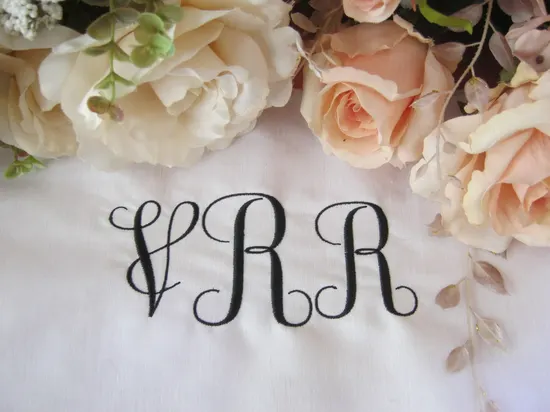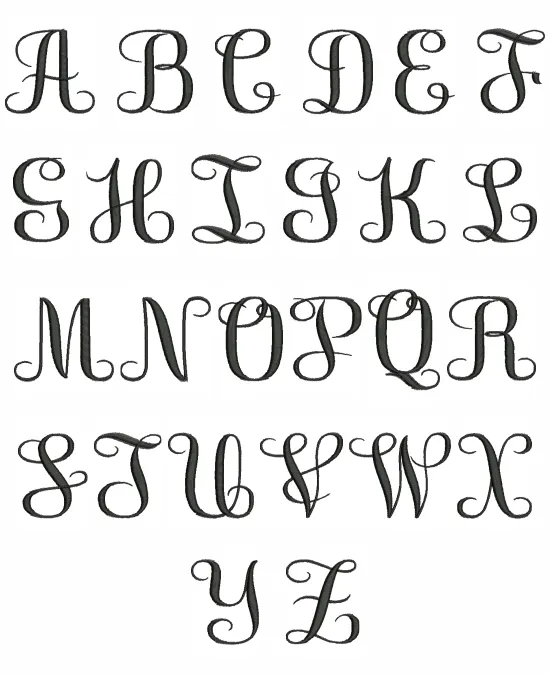
Personalize towels and favourite crafts with this curly monogram set. It includes both size letters for ease of use. Please see the Colour Charts for letter sizing.